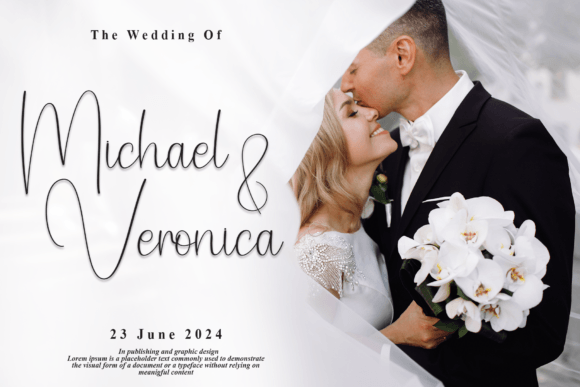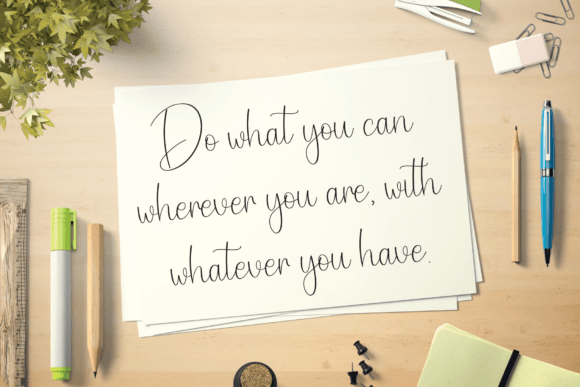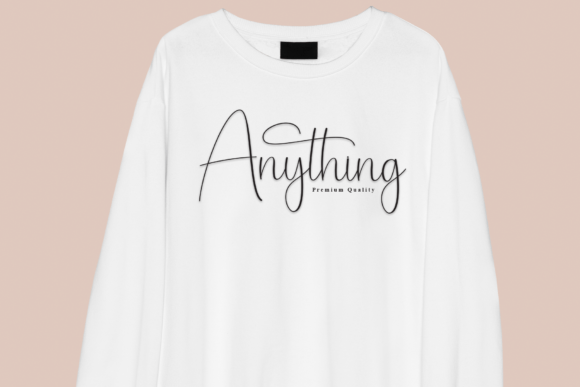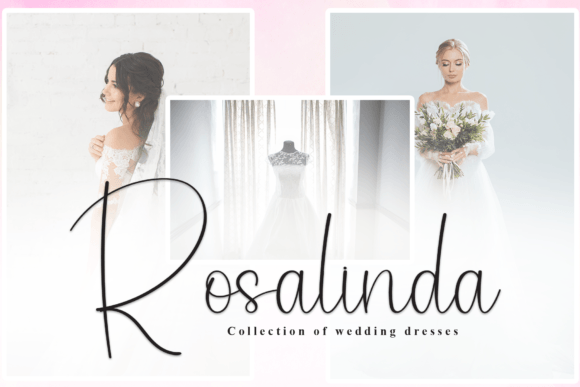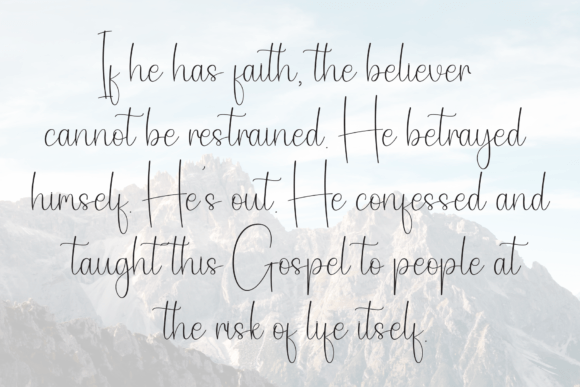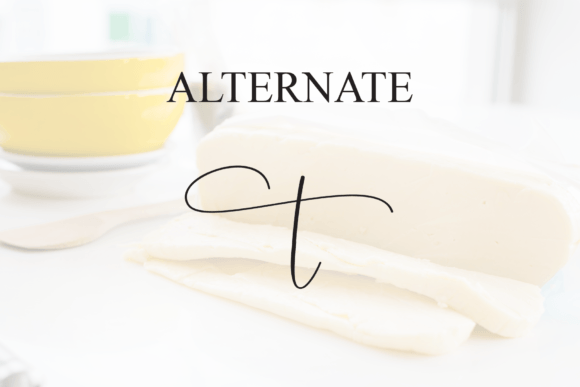
The Perfect Script: Unleashing Your Creativity with Butter Authentic Font
Do you remember that moment when you finally came up with the perfect design concept, and everything fell into place? The excitement, the thrill, the sense of accomplishment – it’s a feeling that never gets old, right? Whether you’re a seasoned designer or a DIY enthusiast, we’ve all been there. And, let’s be honest, sometimes it’s all about having the right tools to bring our creative ideas to life.
That’s where the Butter Authentic Font comes in – a magical script font designed to add a touch of elegance to any project. This carefully crafted font is perfect for Instagram posts, DIY crafts, or any other creative endeavor where a beautiful script is needed. For designers, the Butter Authentic Font is a valuable asset, offering a unique way to express their style and bring their visions to life. With its versatility and sophistication, this font is sure to become a go-to choice for any creative project.
Key Features of Butter Authentic Font
- Unique Characteristics: Authentic feel, natural texture, and subtle imperfections give the font a unique and human touch
- Font Style: Script, Casual, Elegant, and Friendly
Designer Review: Butter Authentic Font
Overall, I was excited to dive into the Butter Authentic Font and see what it has to offer. Here’s my honest take.
- Unique aesthetic – The font has a quirky, vintage vibe that’s perfect for creative projects or branding that needs a touch of personality.
- Excellent legibility – Even at smaller font sizes, the text remains clear and easy to read, making it suitable for body text and captions.
- Not ideal for formal or professional use – The font’s playful style may not be suitable for corporate or government projects that require a more conservative tone.
- May not be as versatile as other fonts – The font’s unique aesthetic can be a blessing or a curse, depending on your design goals. It may not be the best choice for projects that require a lot of flexibility.
While the Butter Authentic Font has its limitations, it’s a great choice for designers who want to add a touch of personality to their projects. Its unique aesthetic and excellent legibility make it a solid addition to any design library. Just be sure to consider your project’s tone and goals before choosing this font.
Butter Authentic Font is perfect for creating a warm and inviting atmosphere in your designs. Use it for:
- Home decor and furniture design
For the best results, use Butter Authentic Font in combination with warm and earthy color schemes and textures.
Alternatives to Butter Authentic Font
Playfair Display is a luxurious, high-end serif font suitable for headlines and titles. It features elegant connections between letters, making it perfect for formal and high-end branding. When to use: For luxury brands, fashion, and high-end advertising.
Comparison: Playfair Display is more ornate and luxurious compared to Butter Authentic Font, which has a more subtle, authentic feel. Playfair Display is ideal for making a statement, while Butter Authentic Font is better suited for everyday use.
Lato is a modern sans-serif font designed for body text and titles. It features a clean and elegant design, making it perfect for digital products and modern branding. When to use: For digital products, tech companies, and modern websites.
Comparison: Lato is more minimalist and modern compared to Butter Authentic Font, which has a more classic, authentic feel. Lato is ideal for digital products, while Butter Authentic Font is better suited for print materials and traditional branding.